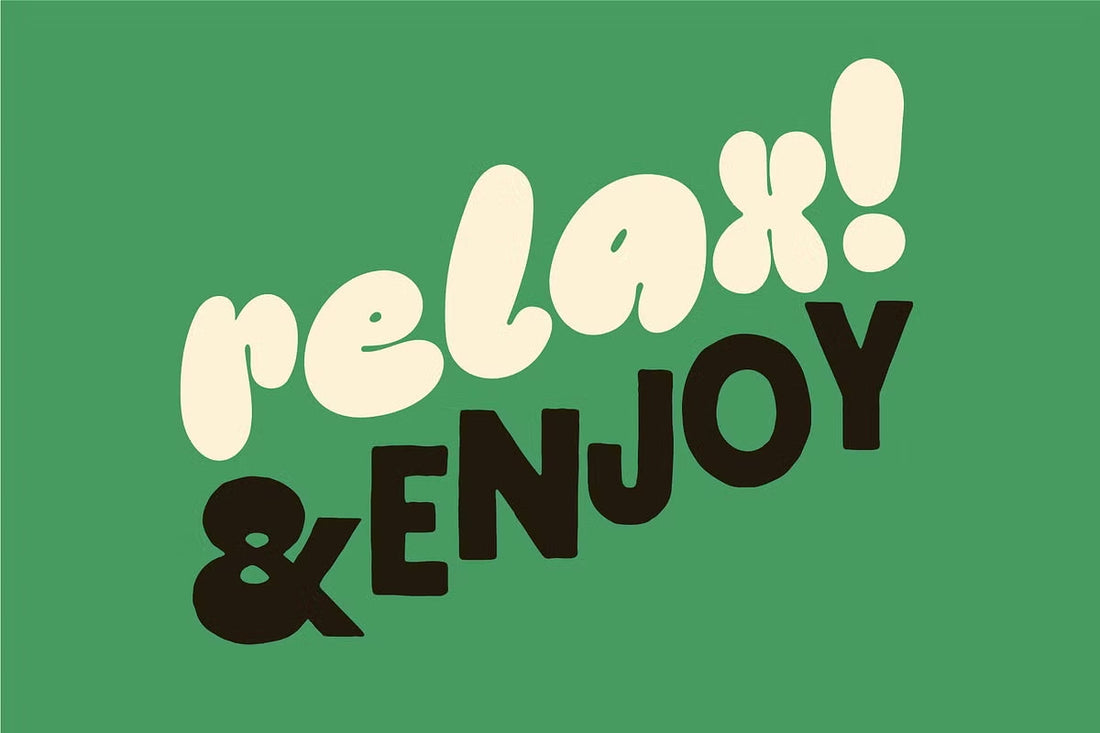
How to Pair Fonts: A Simple, Fun Font Pairing Guide
Fonts Used: Kooky Cloud, Baddie, Handmade Sans
Ever spend way too long picking fonts?
Same. But once you get how contrast and rule-breaking work, it actually gets a lot more easy and fun.
Font pairing can be tricky. You look at two fonts and think, “These should work together,” and then… they don’t. For me, it’s something you only get better at by messing around and seeing what feels right.
Here’s how I work with fonts.
Start with curiosity
The best advice I can give: be curious. Try stuff. Mix fonts you normally wouldn’t. Play with scale, weight, and color. You’ll start to notice patterns: what feels balanced, what feels off, what actually surprises you in a good way. Sometimes the best designs come from total accidents that just happen to click.
A Heavy, Bold, Primary Font (Blockie) paired with 2 rounder, less dense Secondary Fonts (Painted Serif, Puffie). These work well together even though they are all bold fonts because they are different styles, weights, and scales. One reason I love this combination is that the soft, round lines of the serif font and bubble font contrast well with the tight, rigid, geometric boxy shape of the sans-serif. Blockie is obviously the primary font because it is centered in the layout and the largest, boldest font… making it the main thing that draws your eye.
Learn the rules
Typography has its official rules, and they’re good to know. Basically, give each font a clear job (headline vs. sub-header vs. body copy), and keep it to two or three fonts max. Also, make sure it’s readable.
An example of breaking the rules
Legibility is important… unless you’re using a font for creative or artistic expression. For example, the 1960s psychedelic art movement, especially poster design, had a wild, trippy approach to typography. Often, the fonts were hard to read. The distortion wasn’t a mistake; it was intentional, designed to attract the counterculture crowd .. young people into rock music, freedom of expression, anti-establishment ideas, and the psychedelic experience itself. The designs weren’t just meant to be seen; they were meant to be an experience, reflecting the same surreal, reality-bending feelings as the psychedelics that inspired them.
So for these psychedelic posters, immediate readability wasn’t the goal.
Here’s some poster examples by Wes Wilson.
When legibility is needed
Other times, readability is essential, like when you need viewers to understand something quickly. Think advertisements, articles, website sections, or signage. Road signs, for example, must be legible from a distance to convey messages safely and accurately.
Key rules that make text legible or easy to read
Fonts used: Very-Tiny, Baddie, Oddball-Tall
Contrast
Make sure there’s enough contrast between your text and background so the words actually stand out.
Size
Keep your font size big enough to read comfortably, whether it’s on a screen or in print.
Spacing
Give your text room to breathe. Space out lines, letters, and words so nothing feels cramped.
Typography
Pick fonts with clean, clear shapes. Save the fancy stuff for headlines, not body text.
Layout
Stick with an easy-to-follow alignment, like left-aligned. Centered or right-aligned text can look cool for shorter copy, but for long text blocks, it’s harder to read.
Now for pairing fonts
Often, the main thing is contrast.
A classic font pairing: A Bold Handwritten Heading paired with a minimal sans-serif. The larger scale and organic soft qualities of the Primary font for “Organic Hand” contrast well with the smaller, more geometric secondary font.
You want your fonts to look different enough that each has a function or hierarchy, but not so different that they feel like they’re from completely separate worlds. Big vs. small, heavy vs. light, classic vs. modern. Contrast gives your design hierarchy, emotion, balance, and rhythm.
Key rules for font pairing
Fonts Used: Oddball Super Tall & Very-Tiny
Mix font styles
Pair a serif with a sans-serif, or a script with a sans-serif, or a reverse contrast slab-serif with a lighter traditional sans-serif. There are many, many possibilities. Mix and match to create an appealing contrast. It’s one of the easiest ways to make your design feel balanced and interesting.
Contrast weights
Use different weights to make text distinct without or without changing the font family. For example, a bold heading paired with a light body font naturally guides the reader’s eye from big to small, dark to light.
Avoid conflict
Don’t pick fonts that are too similar, it can be confusing and look like a mistake. Similarly, avoid fonts that clash too much, like two ultra-creative display fonts with lots of details. Sometimes this leads to them fighting for attention and makes your design feel chaotic. (That said, if a little chaos is intentional for your design or brand, go for it.)
You can use font families
Very Font Family in 4 styles: Big, Tiny, Big Top, Big Bottom
A safe way to keep harmony is to stick with fonts from the same family. For example, an Extra Bold and Regular version of the same typeface usually pair well, creating a unified, stable feel.
Build hierarchy
Most designs need a primary font, usually the headline. Then use smaller, lighter fonts for body text. Size and weight differences guide the reader and make content easier to follow. Our eyes naturally go to the boldest, brightest thing first, then move down the hierarchy, which is a handy tool when pairing fonts.
Keep it readable and minimal
Limit yourself to two or three fonts to avoid clutter. Make sure your text is readable at its intended size. Test pairings in context. What looks good on your screen might feel different or be unreadable in another scale.
Have fun breaking the rules
The primary and secondary fonts in this design are the same font. Quirkie. But what makes it work is color, scale, and location. Because of the smaller scale, different color, different letter-spacing, and location of “wow” and “font,” it is clear it is the secondary information in the design.
Once you understand the basics of type design and font pairing, experiment. Try pairing two decorative fonts or mixing an ultra-fancy script with a rough, plain sans-serif. Maybe make the line spacing super tight and leave no breathing space along the edges so the design feels bold, condensed, and heavy. Maybe it seems like a bad idea, but sometimes it works. The key is intention. Break rules to add something meaningful, not just to be rebellious.
Breaking rules with purpose looks cool. You can create energy, tension, or something unexpected that makes people stop and look.
Final thoughts
Font pairing isn’t about memorizing rules or chasing trends. It’s about understanding the basics, trusting your gut, and being willing to play. Learn the rules well enough to break them confidently. That’s usually when the best stuff happens.